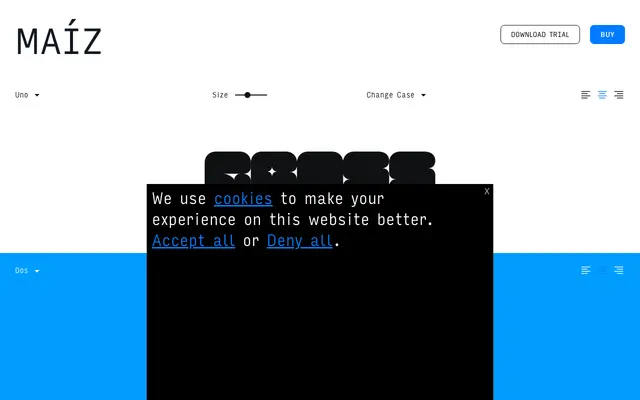
A single-case variable display typeface from Bastarda in which star-shaped counterforms expand progressively across three states, evoking the burst of a popcorn kernel.
Built entirely from uppercase letters owing to its geometric complexity, the family offers three styles — Uno, Dos and Tres — in which the interior counterforms grow larger with each step, following a logic of formal transformation rather than the conventional axes of weight or width. The variability is explicitly experimental rather than functional, though the foundry notes that even the most expanded version retains usable typographic qualities. Extended Latin diacritics are supported alongside a small set of custom ornamental glyphs labelled as grass forms.
An experimental variable display face built on a single-case uppercase geometric structure, with star-shaped counterforms that expand across three states. Its purely formal variability and decorative counterforms place it firmly in the display category.